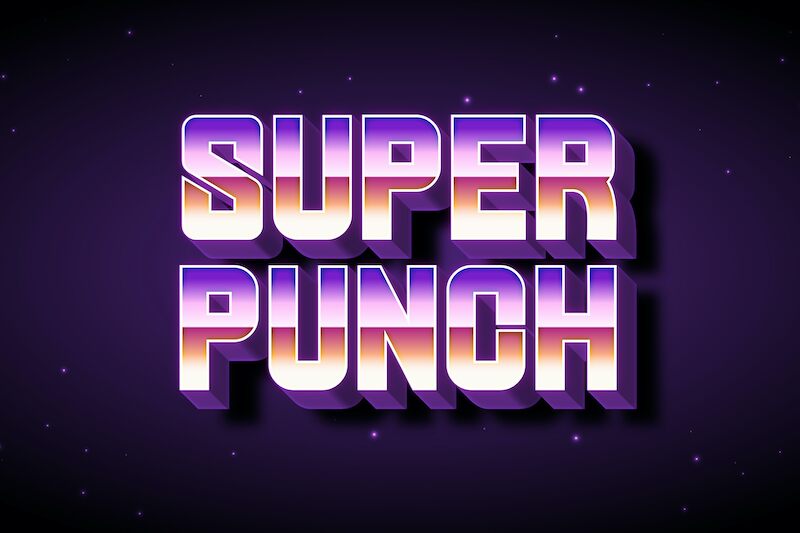
SUPER PUNCH
Super Punch is a narrow, sans serif font designed by Virgiawan Listanto. It is ideal for creating modern, sleek designs for logos, websites, posters, and more. Its stylish design will give your projects an edgy, elegant look.